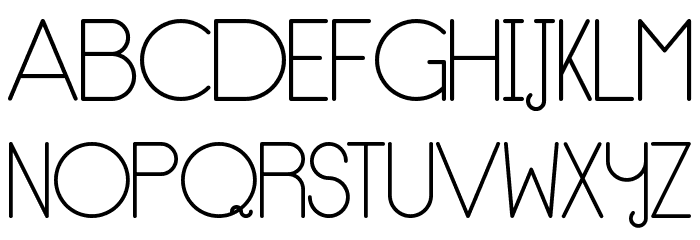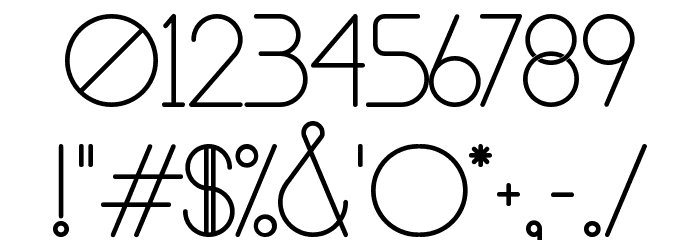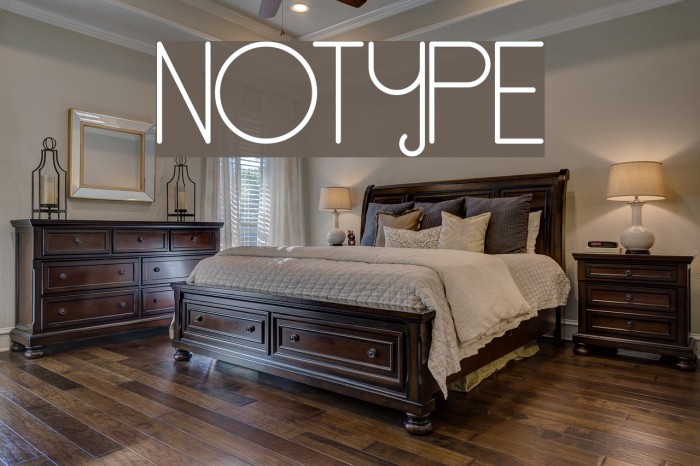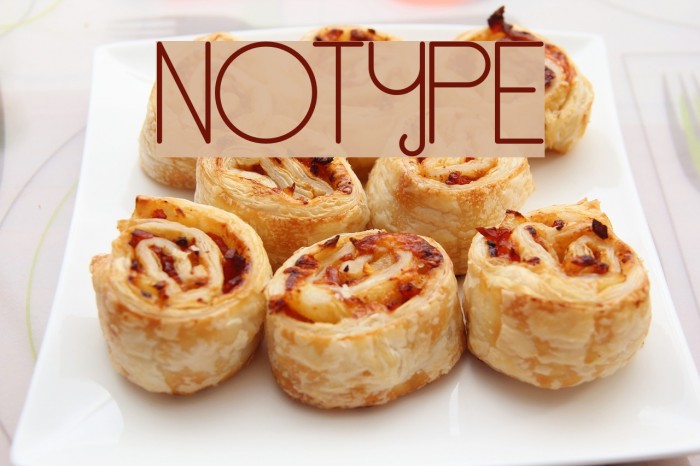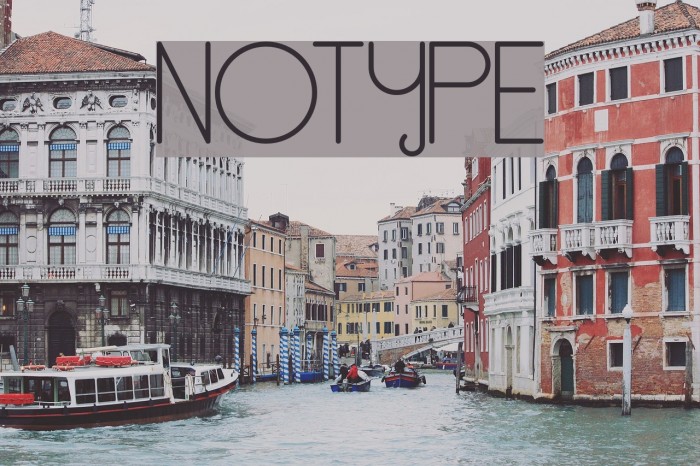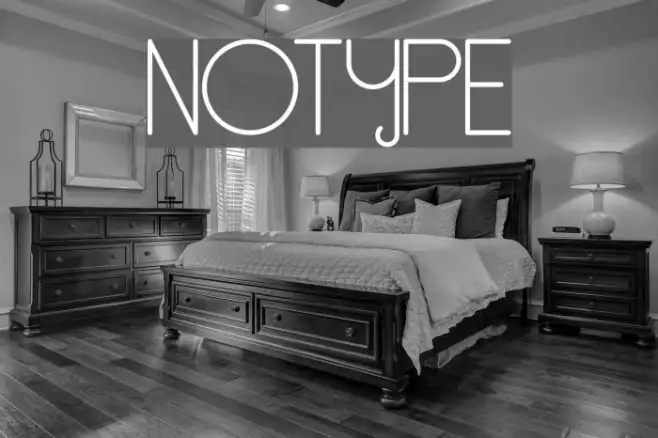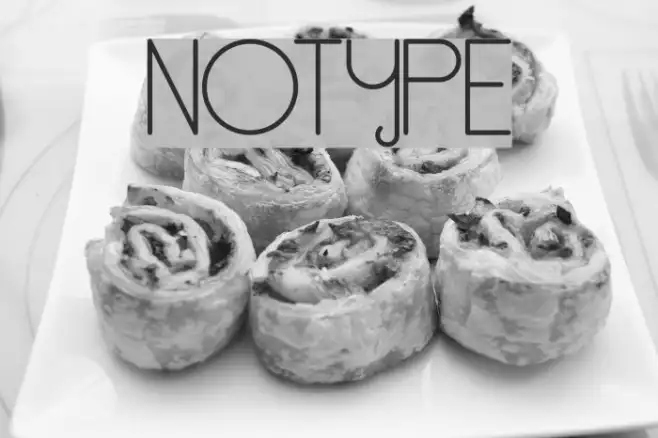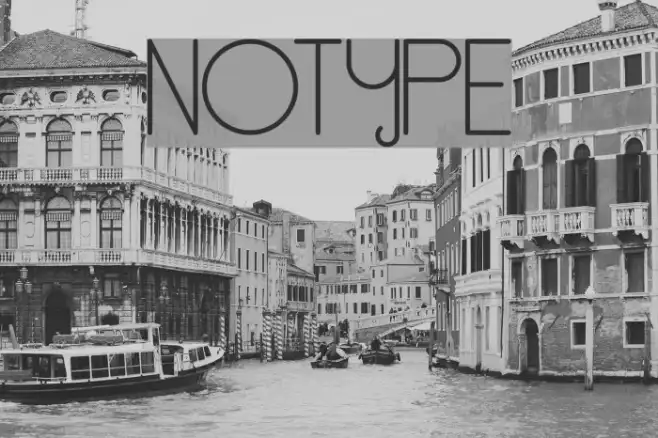
NoType Font
This font features a unique and modern design with a geometric and minimalist approach. The characters are constructed with thin, consistent strokes, creating a clean and open appearance. The uppercase letters are particularly distinctive, with some characters incorporating subtle curves and loops that add a touch of elegance. The numerals and special characters maintain the same thin line weight, ensuring uniformity across all glyphs. The overall style is sleek and contemporary, making it suitable for a variety of design applications.
A modern, geometric font with thin, consistent strokes and subtle curves.
- Proposed Projects: Ideal for branding, logos, modern web design, and minimalist posters.